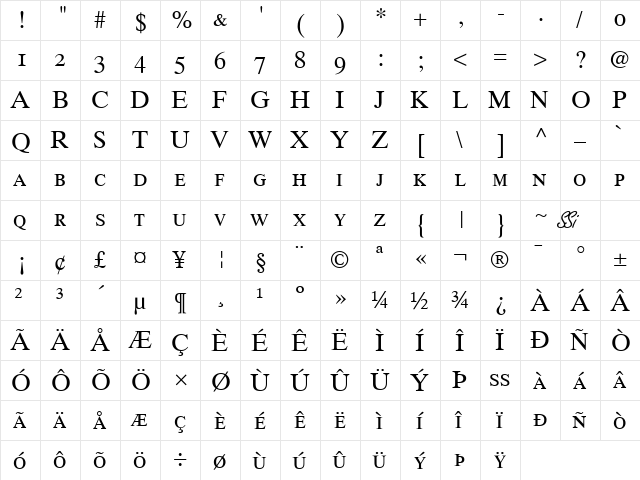
Greco Ten OldStyle SSi Old Style Figures
Design Context for Greco Ten OldStyle SSi Typeface
Greco Ten OldStyle SSi brings classic typographic sensibility to the table — its serifs and measured letterforms reflect centuries of print heritage.
Pro Tip: Set Greco Ten OldStyle SSi with slightly loose tracking in headlines to let each letterform's detail read clearly at display sizes.